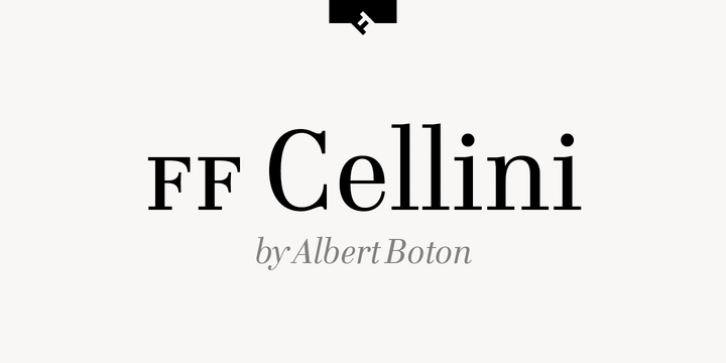
FF Cellini Pro downloadDesigner: Albert Boton
Publisher: FontFont
French type designer Albert Boton created this serif FontFont in 2003.
The family has 6 weights, ranging from Regular to Bold (including italics) and is ideally suited for book text, film and tv as well as editorial and publishing.
FF Cellini provides advanced typographical support with features such as ligatures, small capitals, alternate characters, case-sensitive forms, fractions, and super- and subscript characters.
It comes with a complete range of figure set options – oldstyle and lining figures, each in tabular and proportional widths.